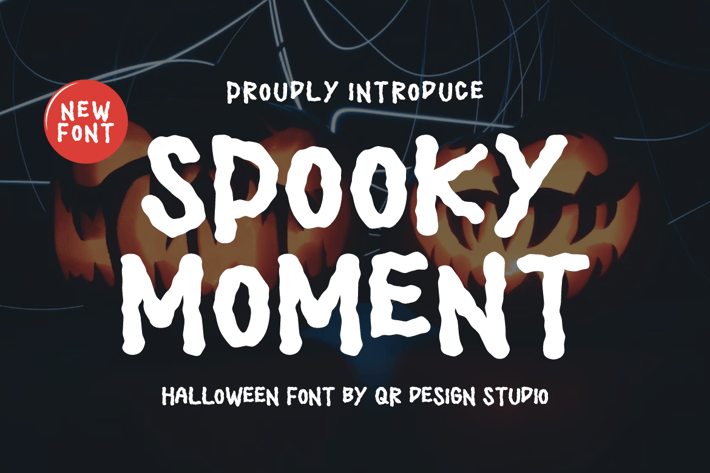
Spooky Moment - Halloween Font
Spooky Moment - Halloween Font is a bold and authentic display font. The font is suitable for any branding project like logo, hallowen, food, poster, kids, sport, and many more. Outstanding in a wide range of contexts.